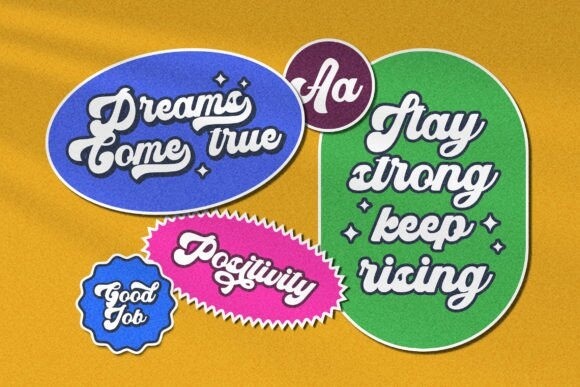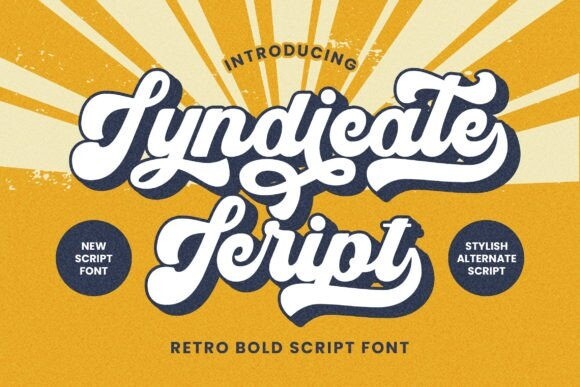
Syndicate Retro Font
Syndicate Retro Font – Stylist Script Font is a font with distinctive handwritten characters perfect for branding projects, logos, wedding designs, media posts, advertisements, product packaging, product designs, labels, photography, watermarks, invitations, stationery, and any project who need handwritten dishes.